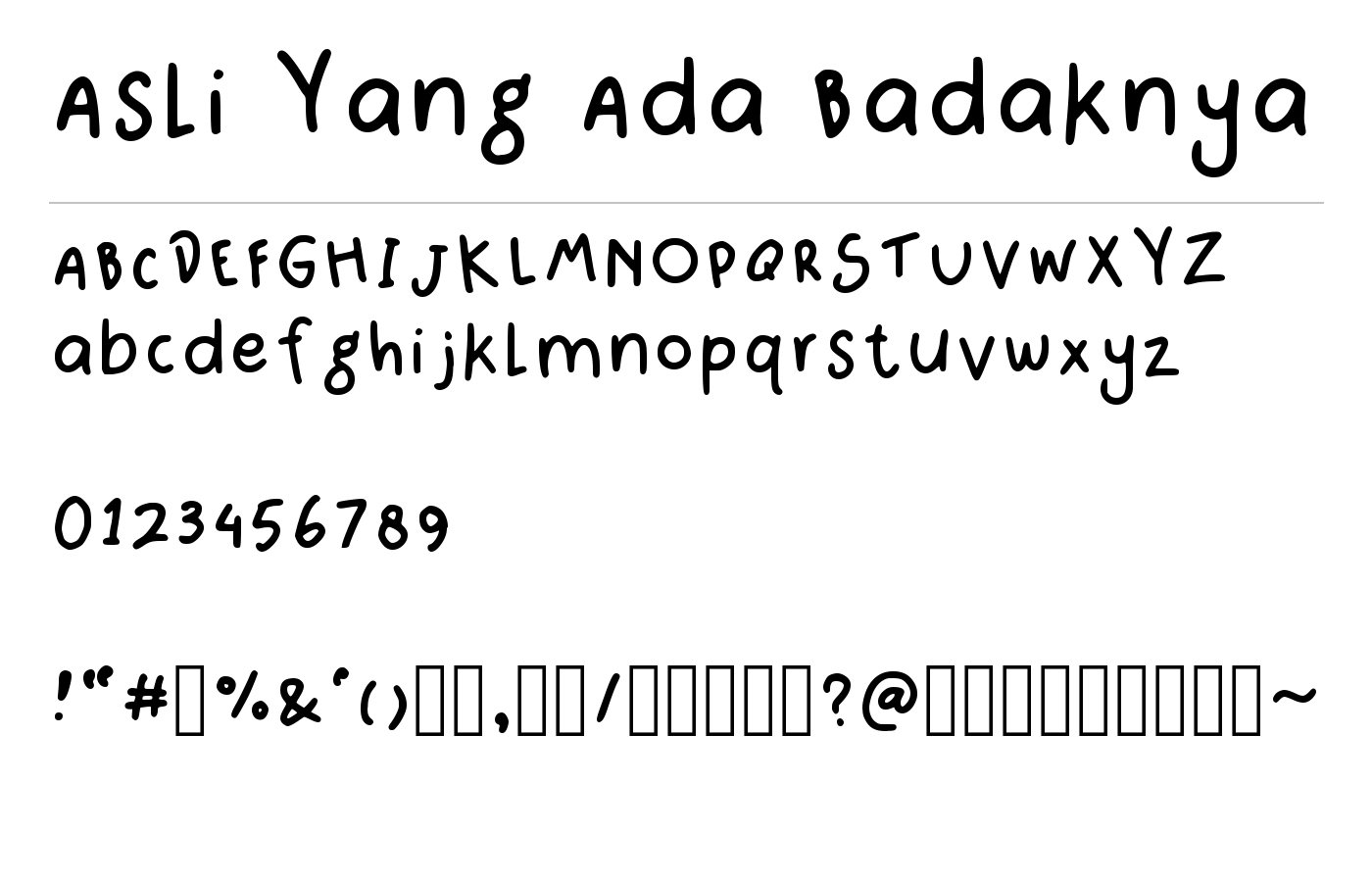
Asli Yang Ada Badaknya is a playful, casual sans serif font with a hand-drawn feel, featuring light weight and rounded letterforms with a moderate x-height. Its irregular strokes and whimsical shapes make it perfect for friendly, informal designs, lending a warm and approachable personality ideal for children's books, creative projects, and fun branding. This font works best in headlines, invitations, and any context where a lively, personal touch is desired.
Asli Yang Ada Badaknya Font
About Asli Yang Ada Badaknya Font